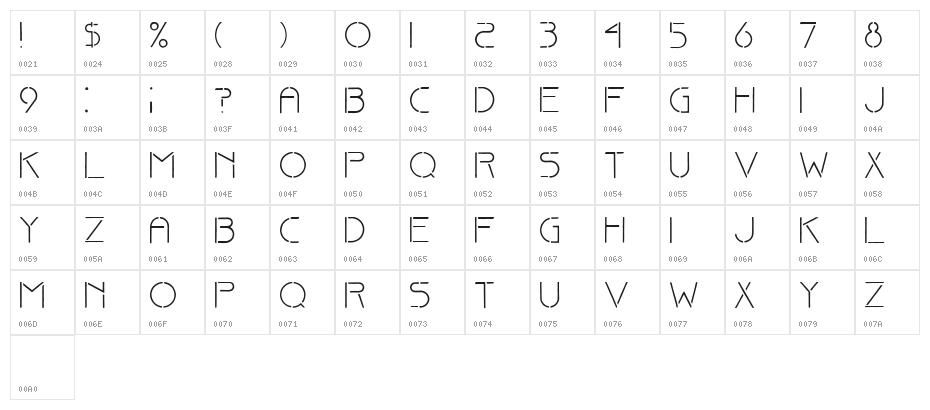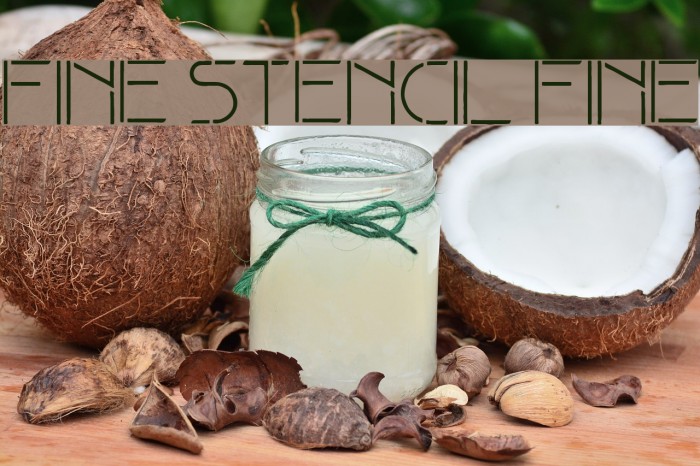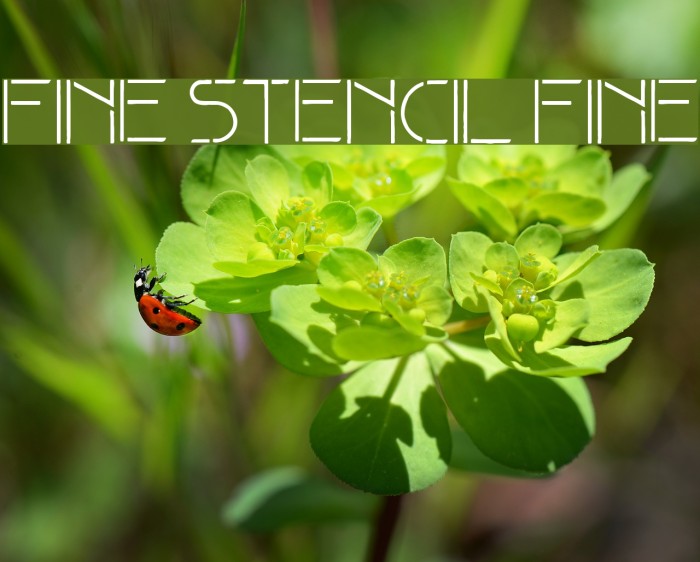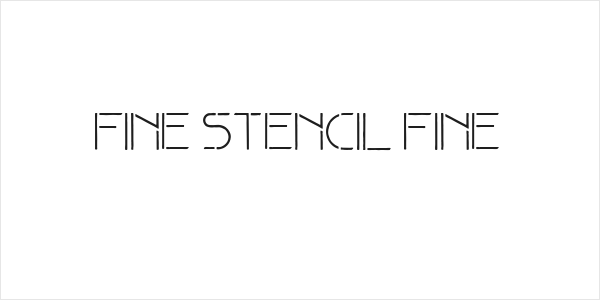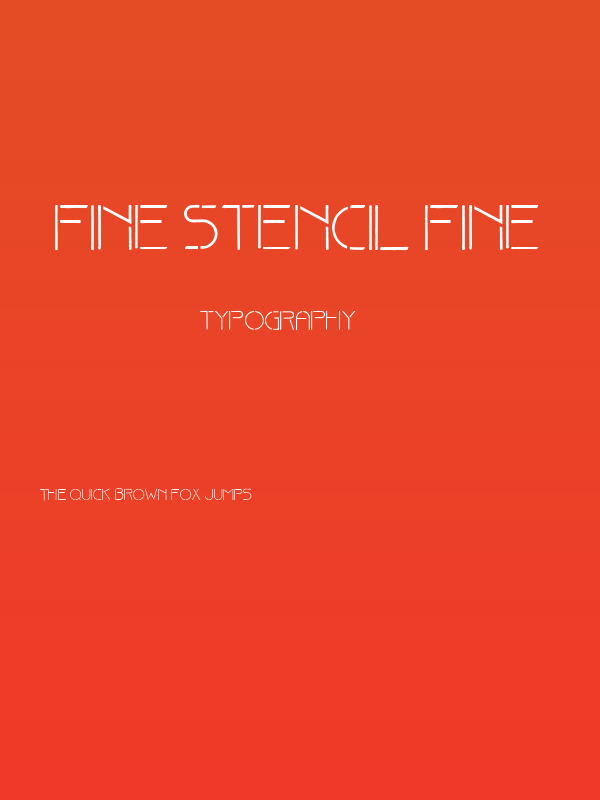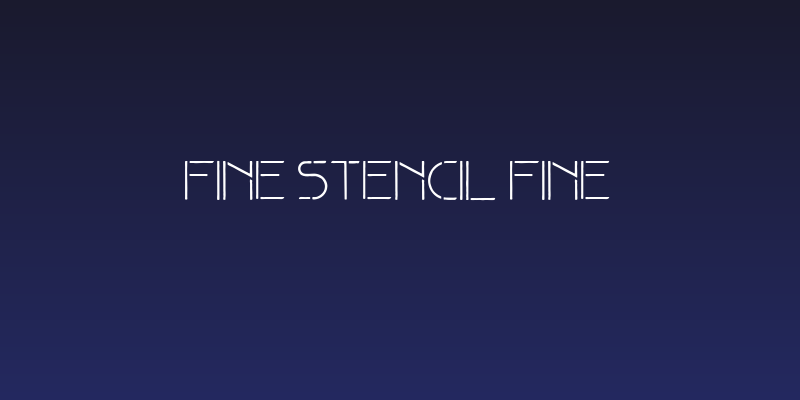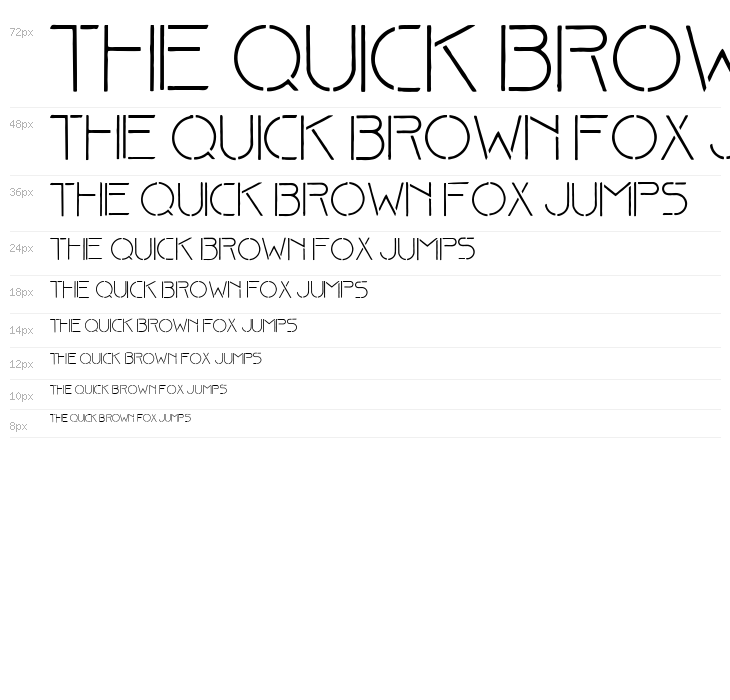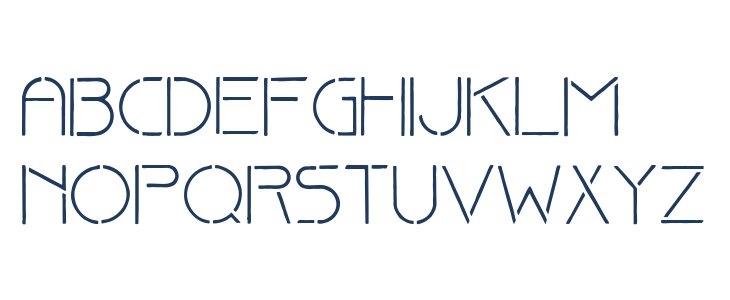
Fine stencil fine Font
Fine stencil fine Description
This font features a modern stencil design with clean, geometric lines and a minimalist aesthetic. The characters are composed of distinct segments, creating a unique and futuristic appearance. The uppercase and lowercase letters maintain a consistent style, with sharp angles and precise cuts that enhance readability while adding an artistic flair. The numerals and special characters follow the same design principles, ensuring uniformity across all elements. This font's innovative approach makes it suitable for contemporary design projects that require a bold and distinctive look.